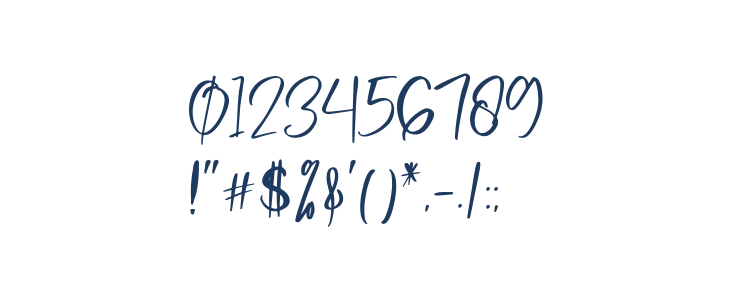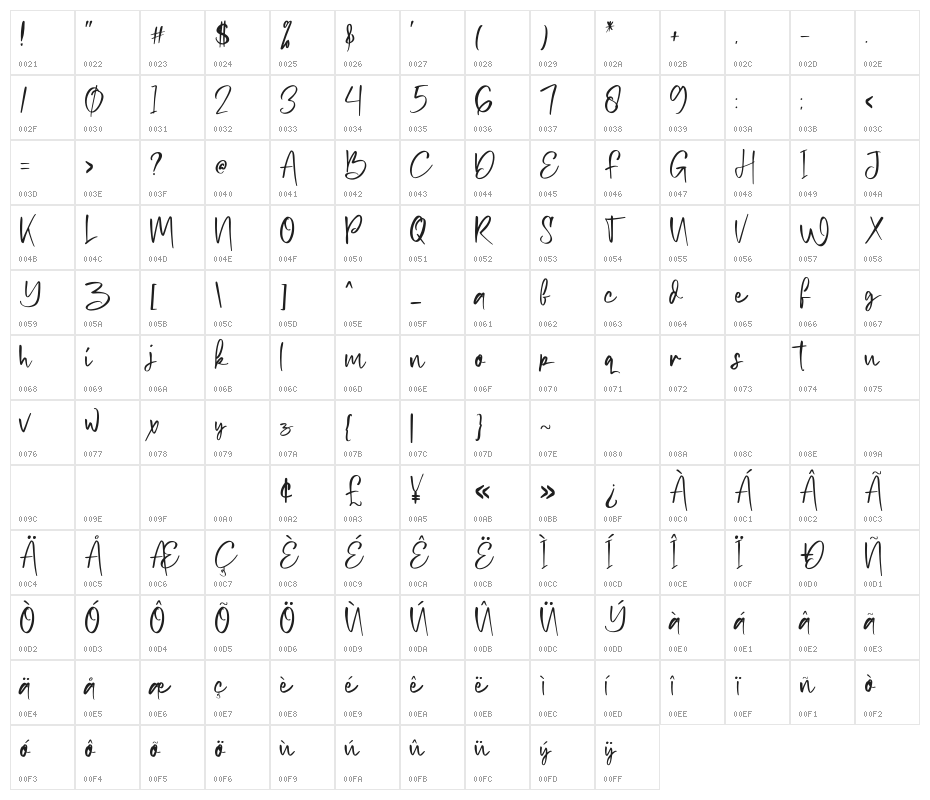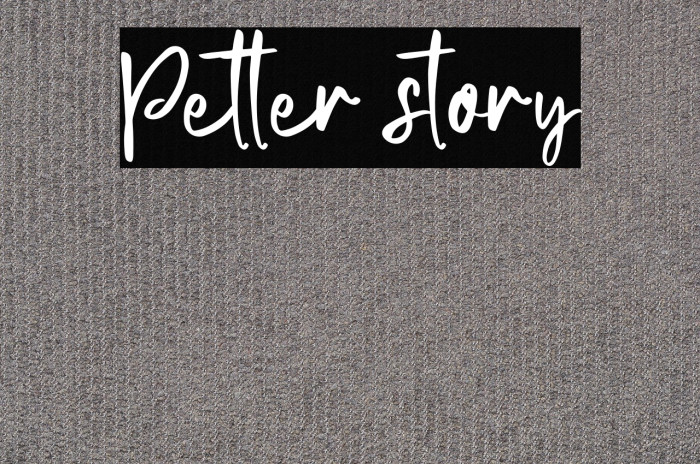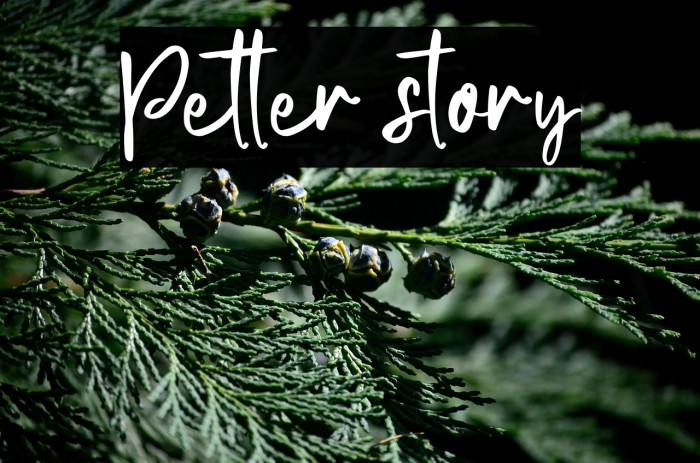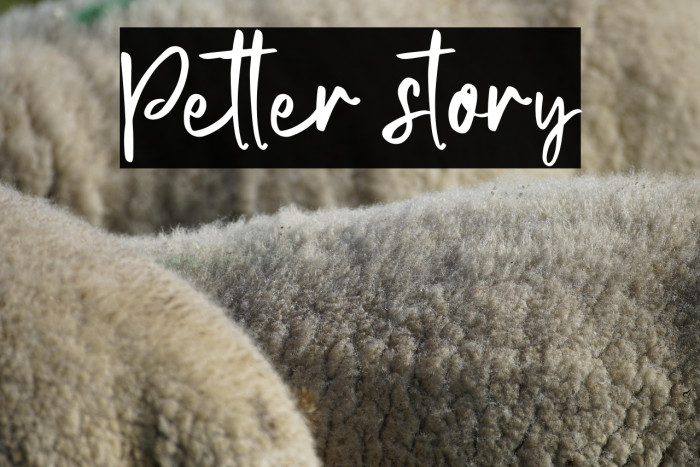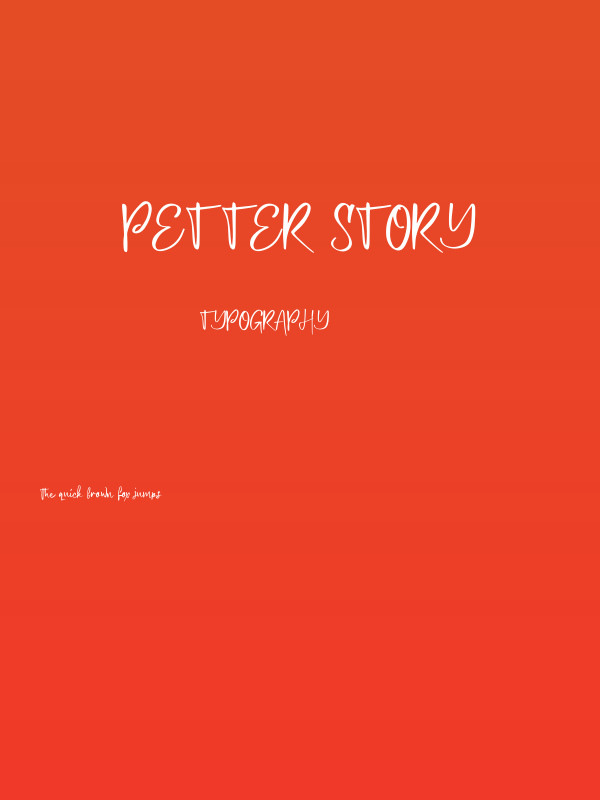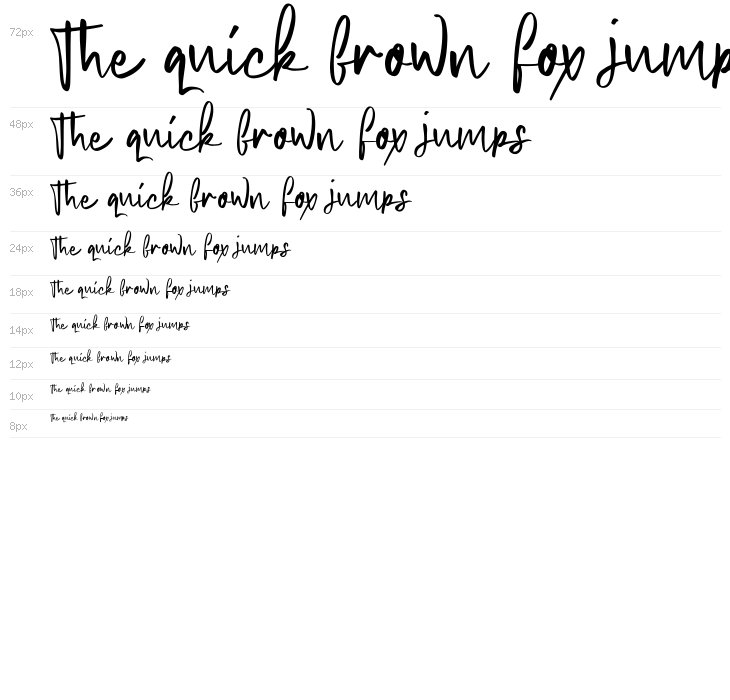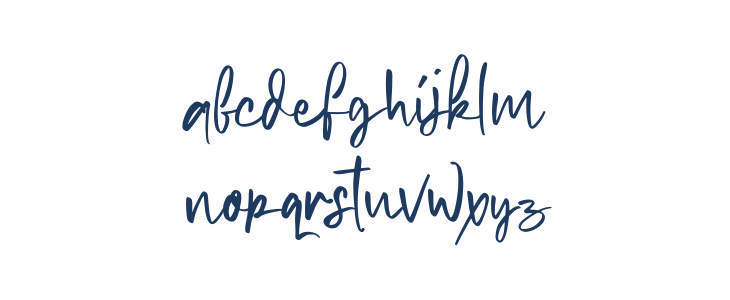
Petter story Font
Petter story Description
This font features a lively and expressive handwritten style, characterized by its flowing, cursive letterforms. The uppercase letters are tall and slightly narrow, with a playful, informal appearance. The lowercase letters maintain a consistent style, with smooth curves and a natural, organic feel. Numbers and special characters are designed to match the overall aesthetic, providing a cohesive look. The font's strokes vary in thickness, adding a dynamic quality that enhances its handwritten charm. This style is perfect for projects that require a personal touch, such as invitations, greeting cards, or creative branding.